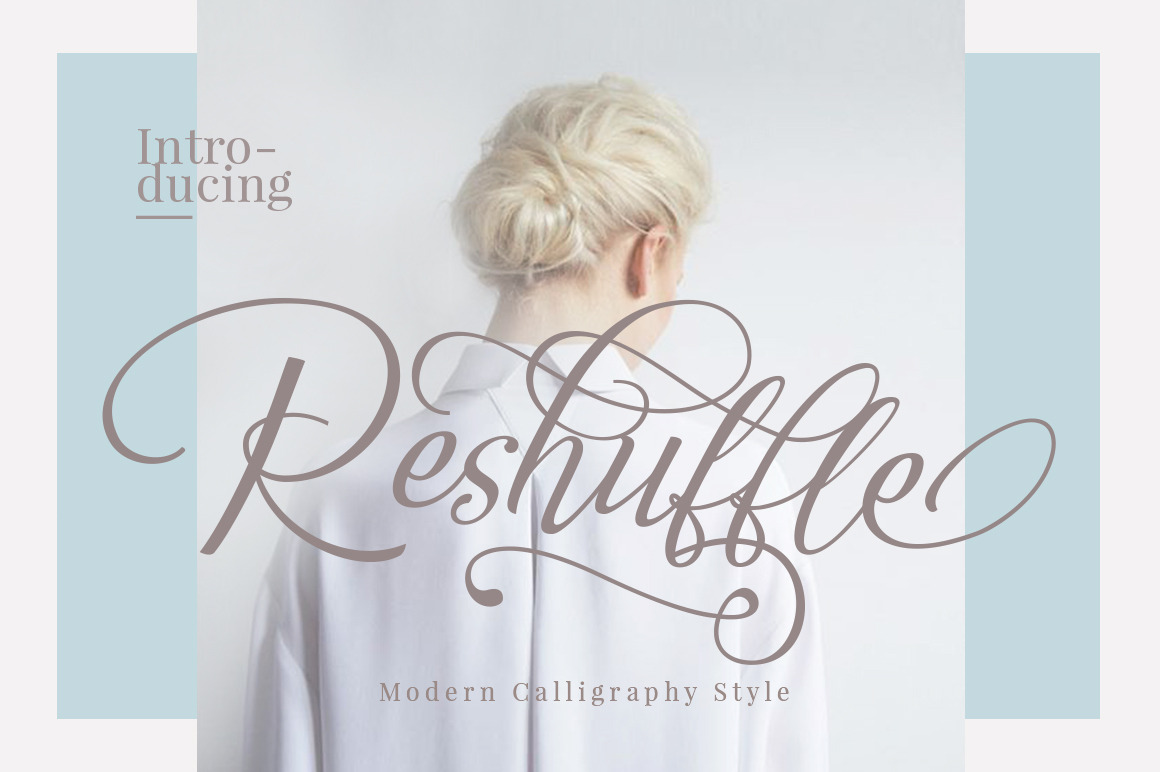
Reshuffle Script Font Set
Reshuffle - a new fresh & modern script with a calligraphy style, decorative characters and a dancing baseline! So beautiful on invitation like greeting cards, branding materials, business cards, quotes, posters, and more!
Reshuffle come with 448 more glyphs. The alternative characters were divided into several Open Type features such as Stylistic Sets, Stylistic Alternates and Ligature. The Open Type features can be accessed by using Open Type savvy programs such as Adobe Illustrator, Adobe InDesign, Adobe Photoshop Corel Draw X version, And Microsoft Word. And this Font has given PUA unicode (specially coded fonts). so that all the alternate characters can easily be accessed in full by a craftsman or designer
- Initial Alternates
- Terminal Alternates
- Standard ligatures
- Unique ligatures
- Stylistic sets
- SWASH
- International Symbols include